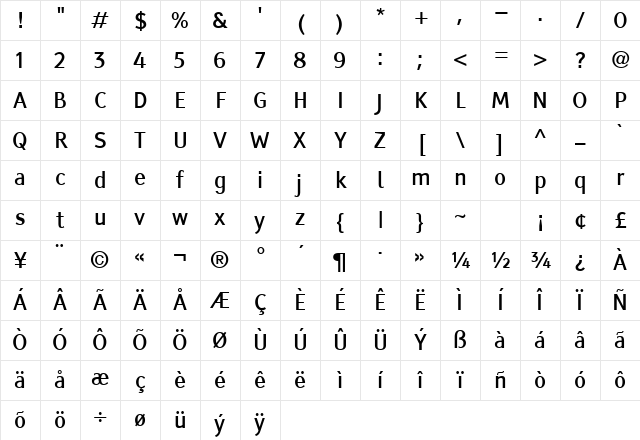
TiresiasScreenfont Regular Free Font
TiresiasScreenfont Regular
Complete TiresiasScreenfont Regular glyph index. Displaying only characters natively supported by TiresiasScreenfont Regular font.
Design Context for TiresiasScreenfont
TiresiasScreenfont is a composed and adaptable typeface that performs quietly and consistently across a wide range of design contexts.